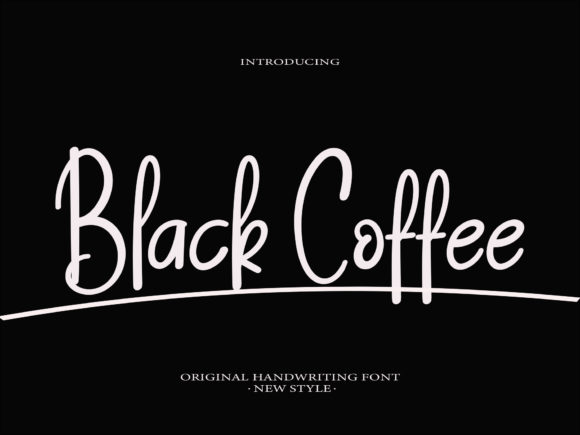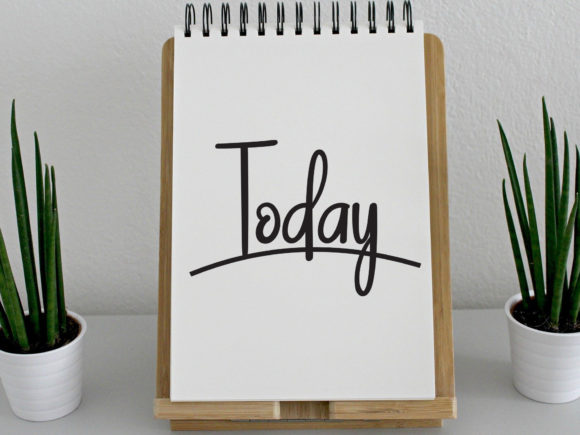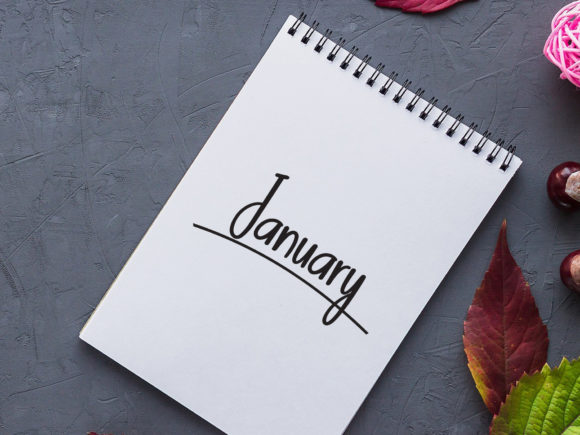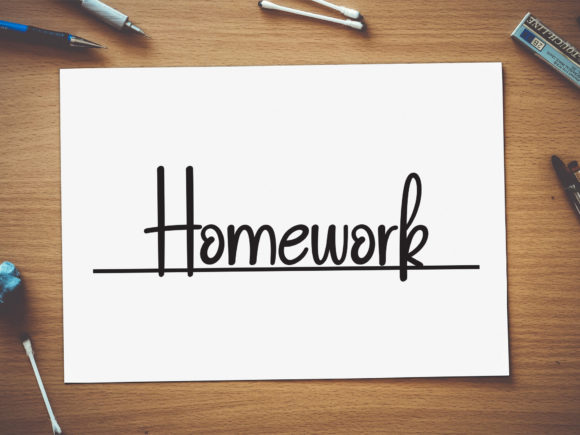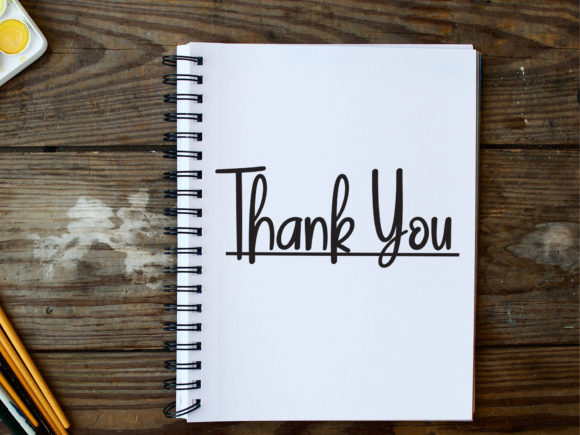
Black Coffee Font
About Black Coffee Font
Black Coffee is a sweet handwritten font made with great care in order to produce the expected outcome. This font can be used for writing various kinds of products, according to their respective needs.